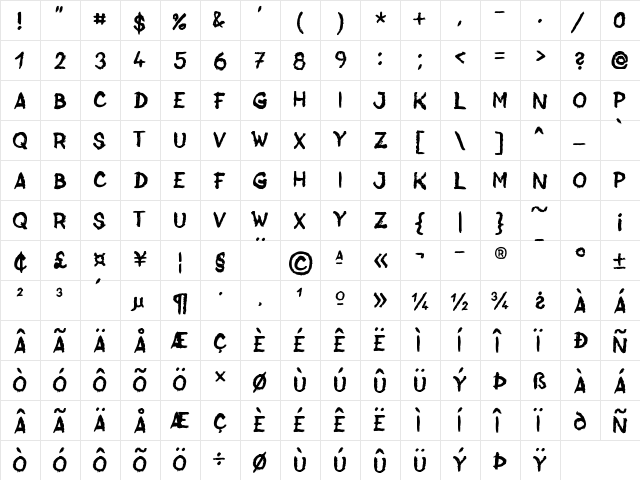
Jack Brusher Regular
Design Context for Jack Brusher Typeface
Jack Brusher flows with the natural rhythm of handwritten lettering, making it ideal for designs that call for warmth and personal expression.
Font Pairing: Combine Jack Brusher with a simple geometric sans for maximum contrast — the tension between flowing curves and clean structure is a classic typographic pairing.
Pro Tip: Use Jack Brusher for short runs of text — names, titles, or taglines. Extended body copy in script faces tires the eye quickly.